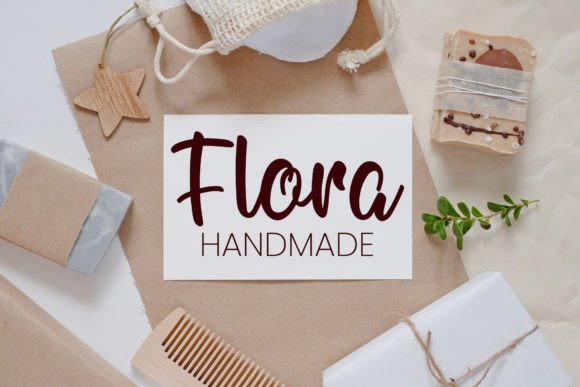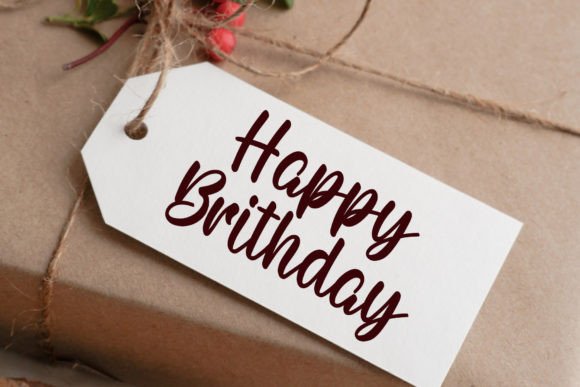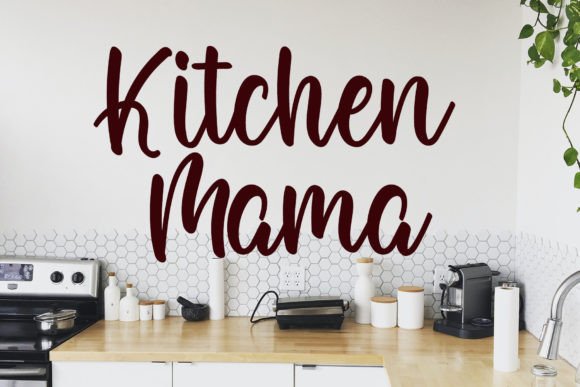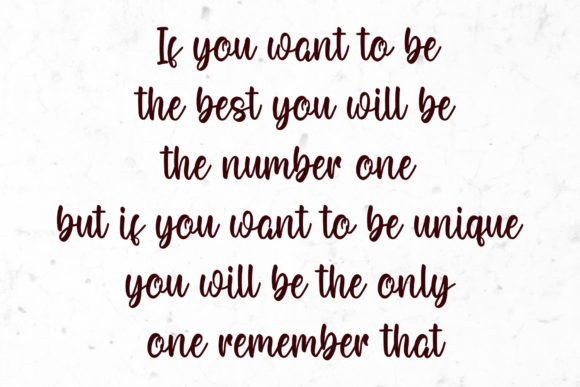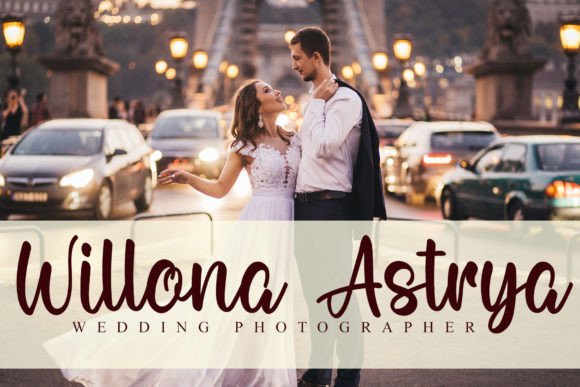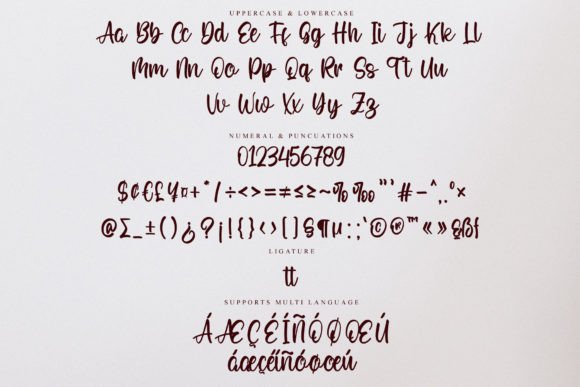
Alyona Font: Elevate Your Designs with a Touch of Elegance
In the world of typography, fonts play a crucial role in conveying the tone and personality of a brand or project. For designers and crafters seeking a stylish and dainty script font, Alyona Font is an excellent choice. This beautiful font is suitable for a wide range of projects, including logos, branding projects, labels, photography, watermarks, special events, and anything that needs a handwritten touch.
What is Alyona Font?
Alyona Font is a modern script font that exudes elegance and sophistication. Its delicate strokes and cursive connections make it perfect for adding a touch of refinement to any design. The font’s stylish and dainty appearance makes it ideal for projects that require a high level of creativity and visual appeal.
Key Features of Alyona Font
- Stylish and Dainty: Alyona Font boasts a beautiful, cursive script that adds a touch of elegance to any design.
- Versatile: This font is suitable for a wide range of projects, from logos and branding to labels and watermarks.
- Handwritten Touch: Alyona Font’s script style gives it a personal, handwritten feel that’s perfect for special events and projects that require a unique touch.
- Easy to Read: Despite its delicate appearance, Alyona Font is easy to read, making it perfect for body text and captions.
Use Cases for Alyona Font
Alyona Font is an incredibly versatile font that can be used in a variety of design projects. Here are some use cases to get you started:
- Logo Design: Create a stunning logo for your brand with Alyona Font. Its stylish and dainty appearance makes it perfect for businesses that want to convey elegance and sophistication.
- Branding Projects: Use Alyona Font to create a consistent visual identity for your brand. Its cursive connections and delicate strokes make it ideal for business cards, letterheads, and other marketing materials.
- Labels and Packaging: Add a touch of elegance to your product labels and packaging with Alyona Font. Its handwritten feel makes it perfect for food labels, wine bottles, and other luxury products.
- Photography: Use Alyona Font to add a personal touch to your photographs. Its stylish and dainty appearance makes it perfect for watermarks, captions, and photo titles.
- Special Events: Create stunning invitations, programs, and other event materials with Alyona Font. Its elegant appearance makes it perfect for weddings, galas, and other formal events.
- Use it for Headings and Titles: Alyona Font is perfect for headings and titles. Use it to add a touch of elegance to your design.
Alyona Font is a beautiful and versatile script font that’s perfect for designers and crafters seeking a stylish and dainty touch. Its elegant appearance and handwritten feel make it suitable for a wide range of projects, from logos and branding to labels and special events. With its ease of use and flexibility, Alyona Font is an excellent addition to any designer’s toolkit.